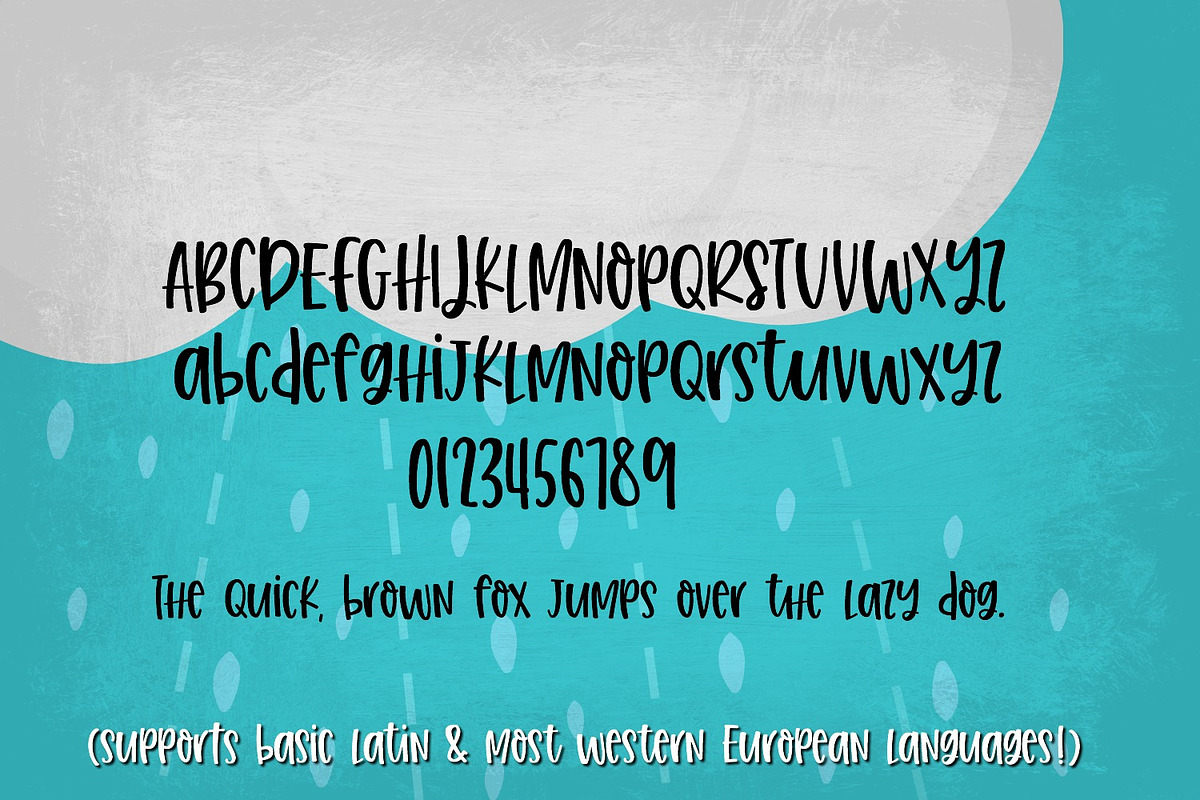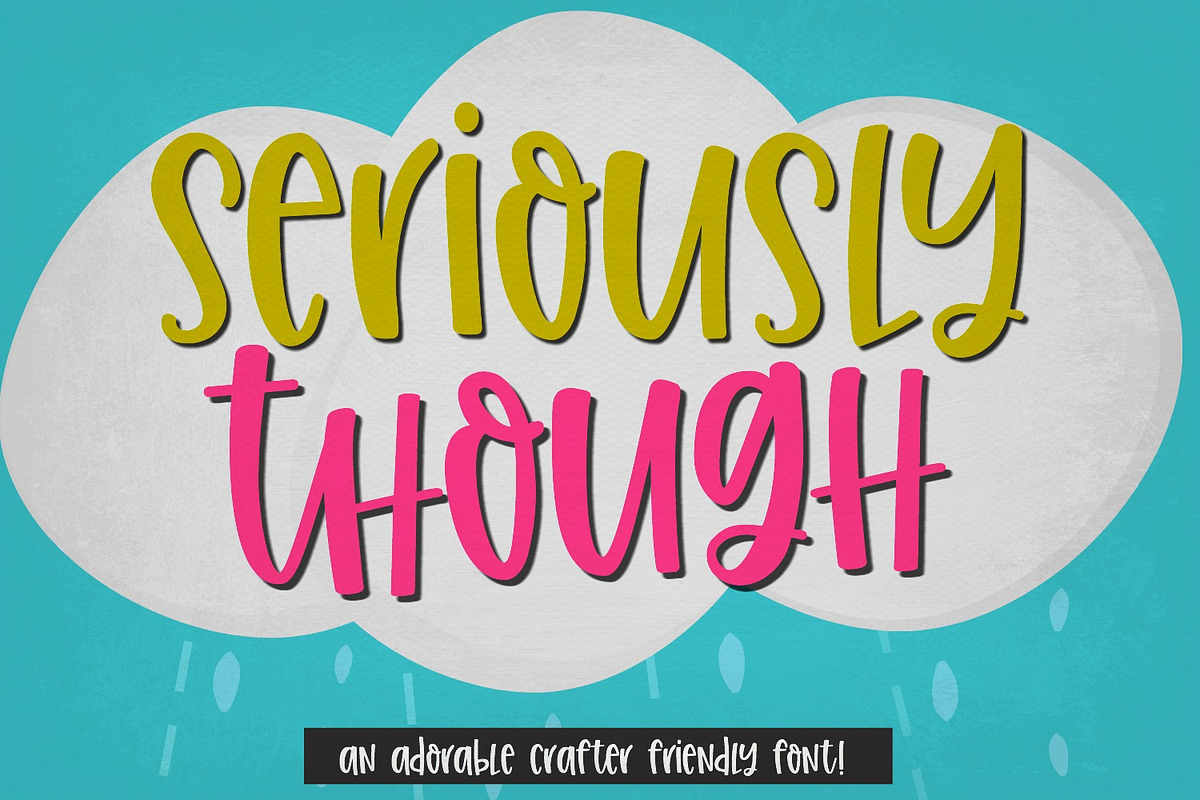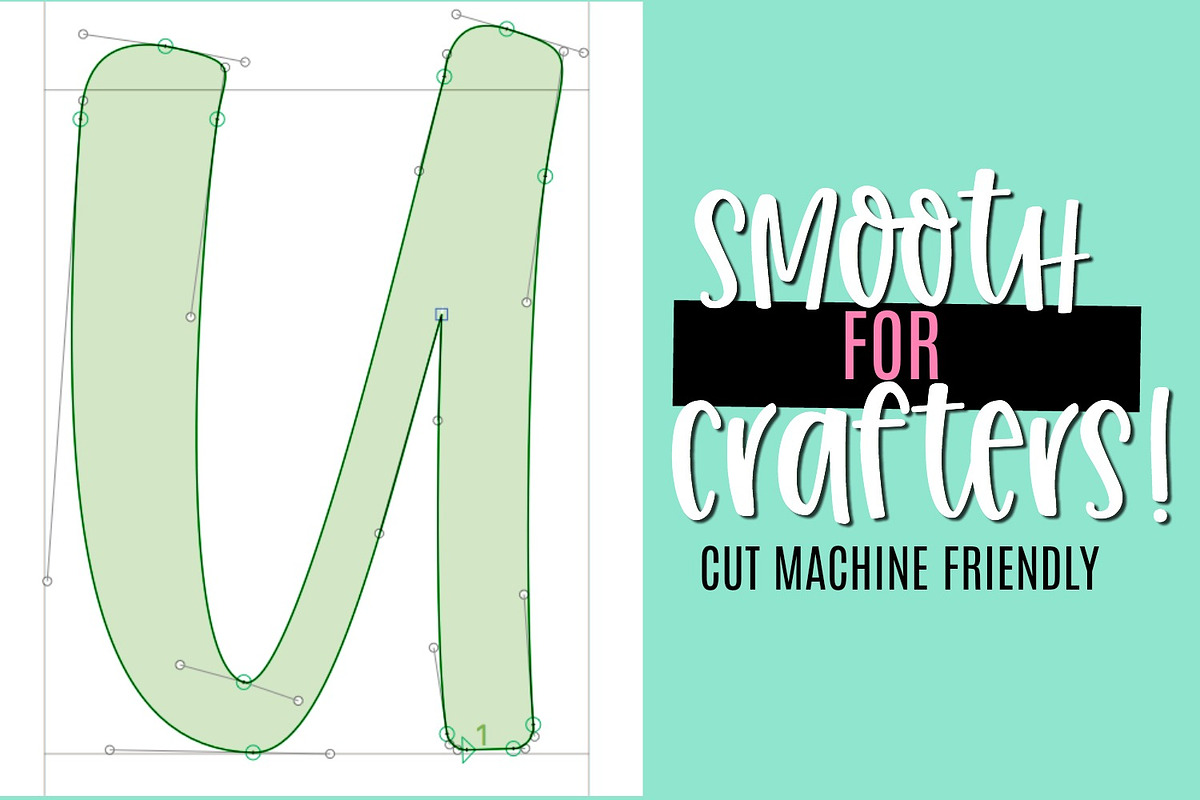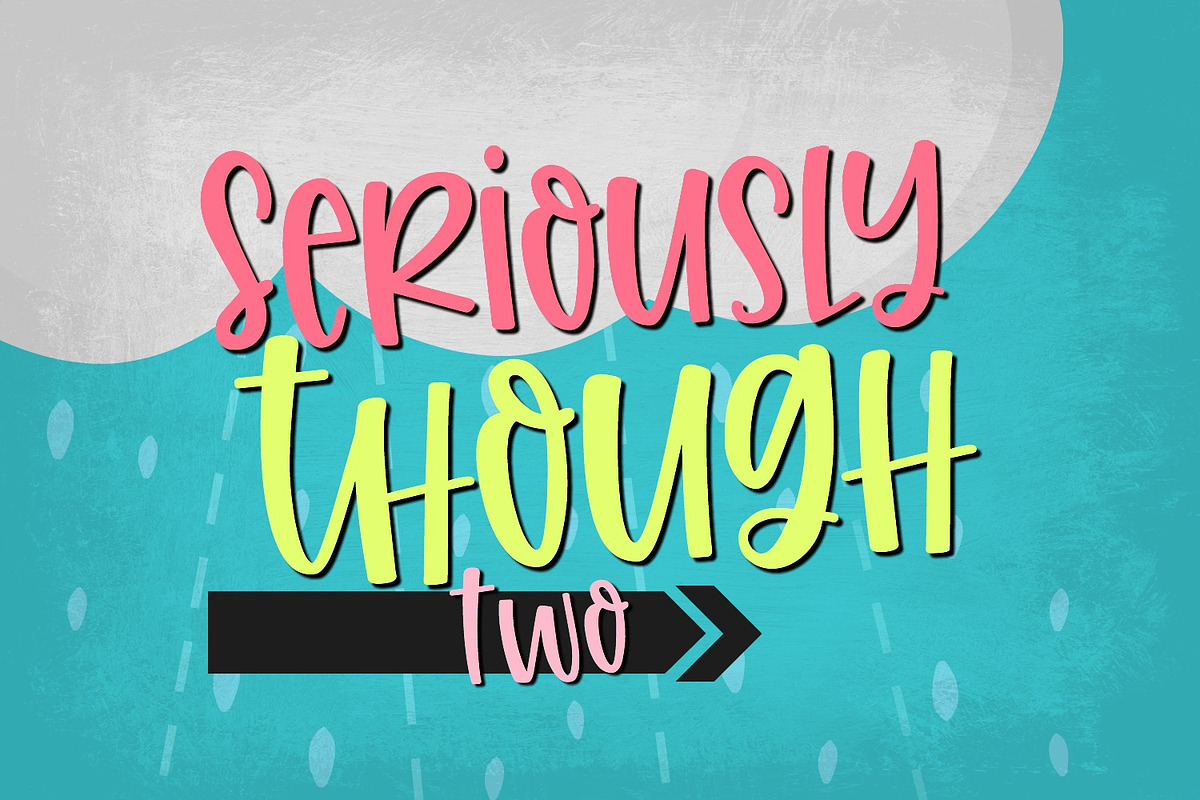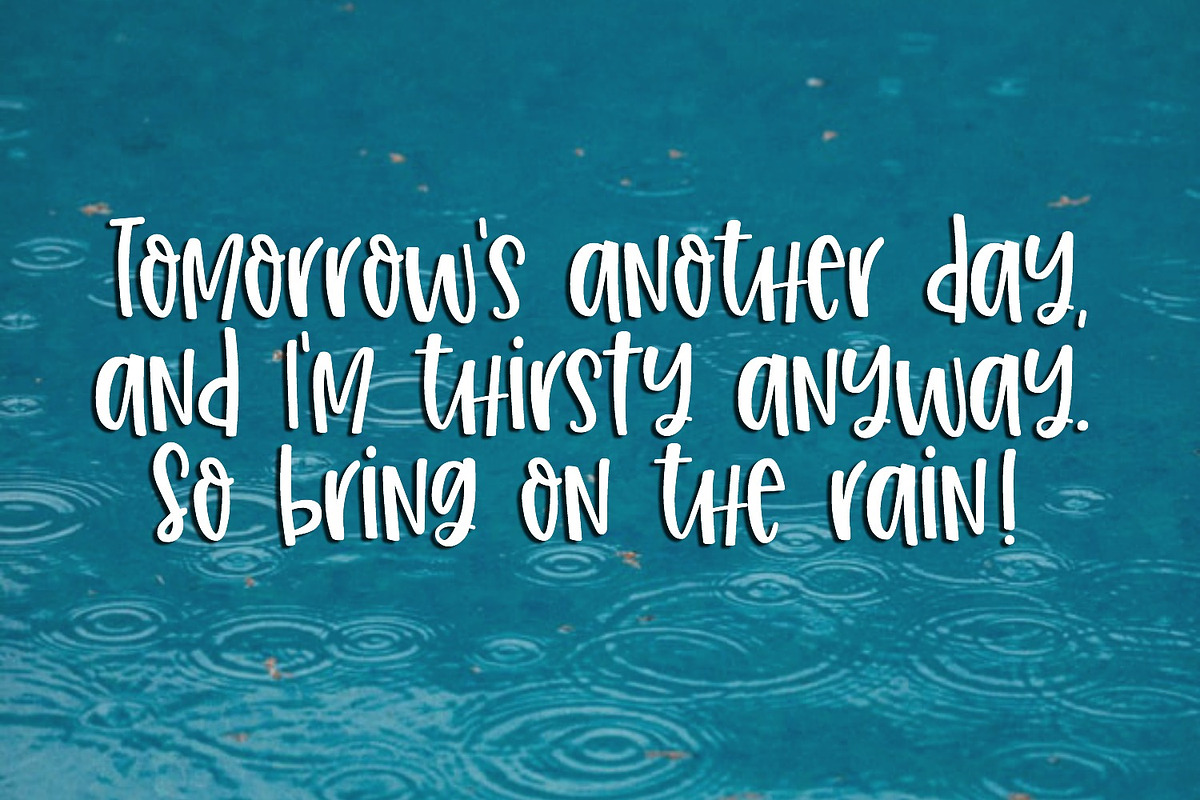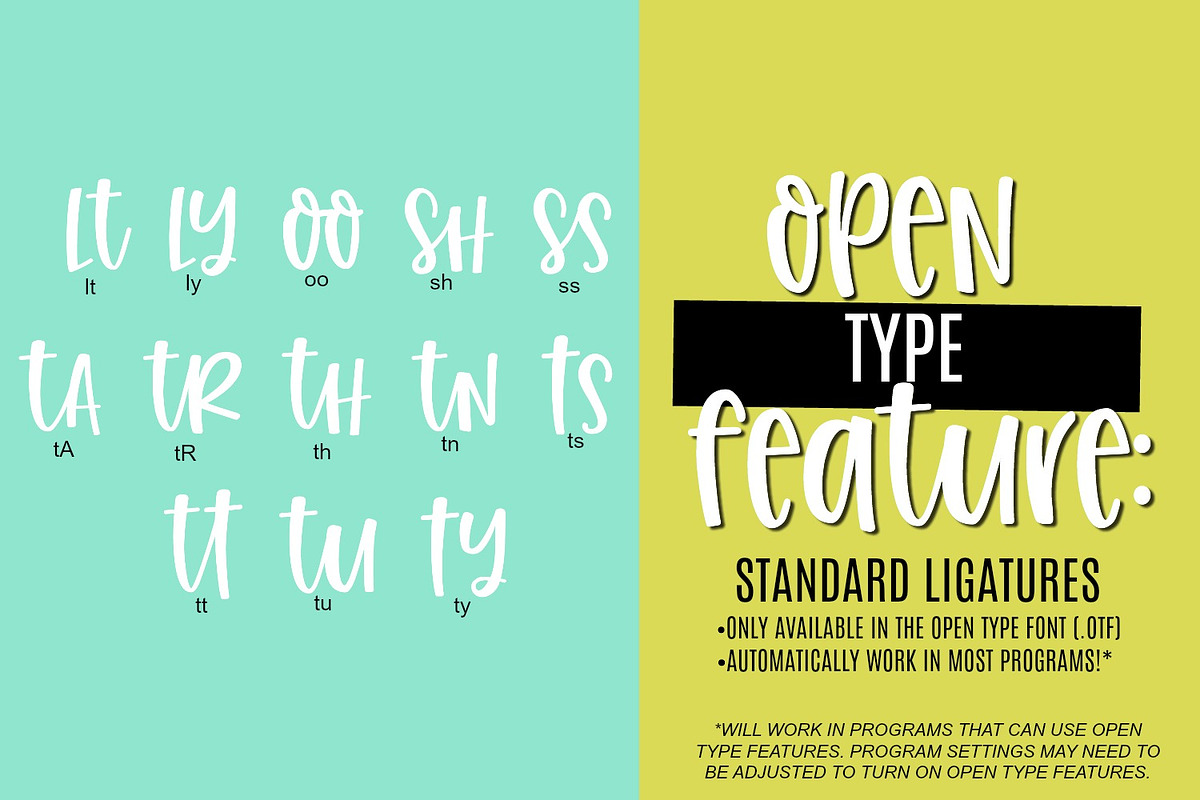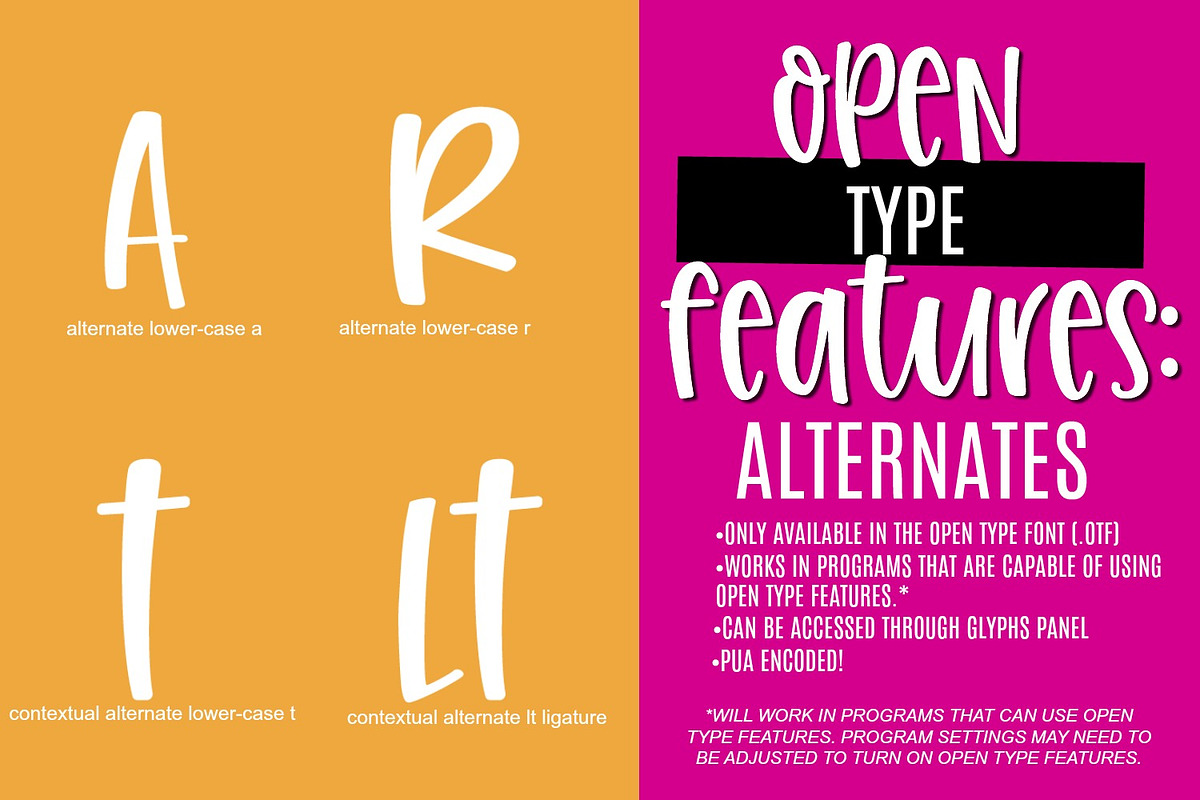
Seriously Though Handwritten Font
Introducing "Seriously Though"! This fun lovable font is perfect for many design projects! I've made this font as smooth as possible, reducing the amount of nodes in each glyph to ensure optimal cutting with Cricut, Silhouette or other craft machines.
SS-Seriously Though --- contains standard ligatures + alternate glyphs SS-Seriously Though Two --- contains standard ligatures. Alternate glyphs replace standard glyphs from the first version of the font